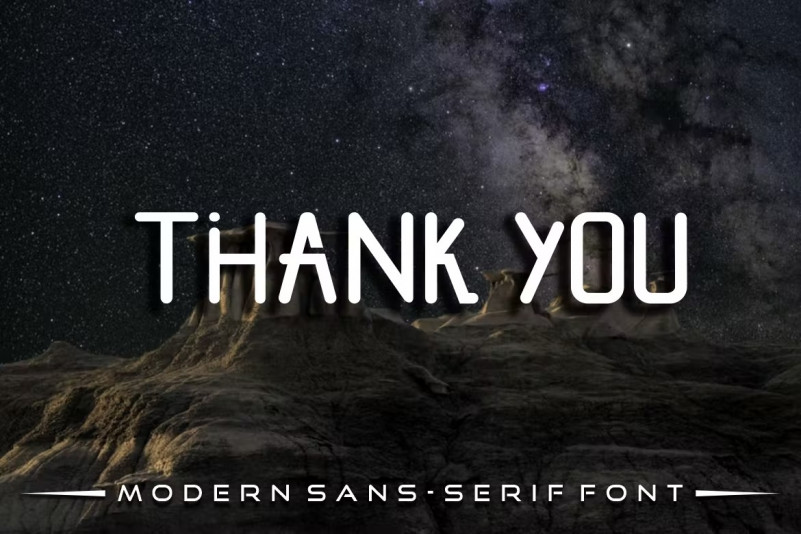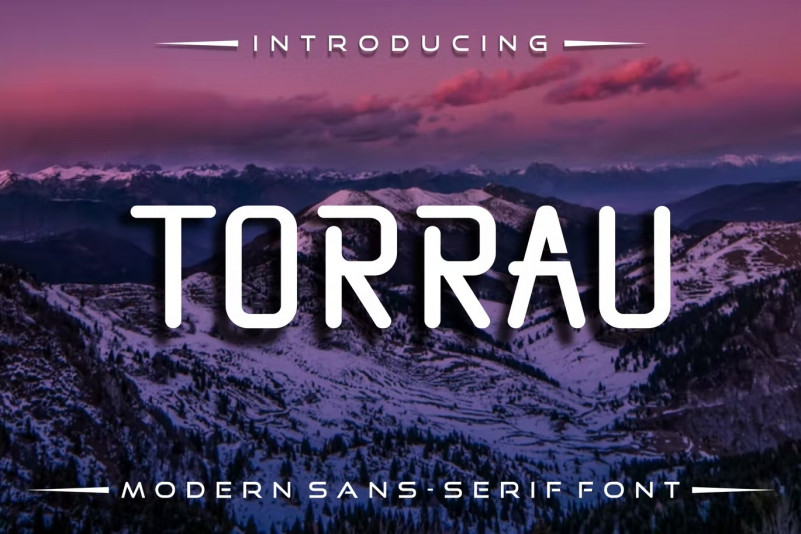
Torrau Font
Torrau Modern sans serif font – related to travel, history & culture in the present/modern way,lifestyle designs such as logos, title, magazine, and more.